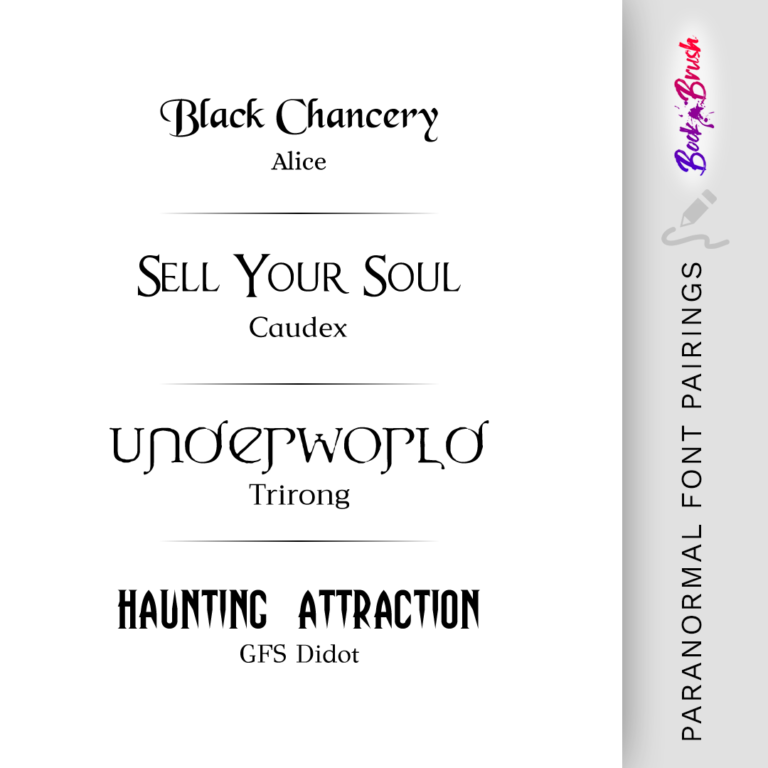
The Best Book Cover Fonts To Use For Your Paranormal Book
Your book cover is the face of your book, so it needs to properly convey the tone, message, and genre of your book. The cover of your book needs to flow well and jive together; this includes the image and the font. If your font doesn’t convey that this is a paranormal book, it can confuse the reader. Below, we discuss the best cover fonts to use for your paranormal book.
The Importance Of Book Cover Fonts
While the appearance of the font for your book cover is important, there’s more to it. When a reader grabs your book off the shelf or sees it online, your cover only has a few seconds to make a first impression. Readers often judge the genre of the book by the cover. Font choice is essential, as it can convey the tone and genre of your book. When you use a font that would suit a romance book for a paranormal book, it could confuse the reader. In the end, this could cause them to skip your book. Don’t let your font or the cover of your book be the reason why your audience isn’t interested in your book. Let us help you determine the right font to set your book apart from the rest and make a good first impression for your audience.
Gotham
Gotham is a relatively simple but effective font to use. It’s a sharp, strong, but modern font, which makes it a good choice for a paranormal book. This is typically a popular font for thrillers and paranormal book covers.
Sell Your Soul
The creepy name of this font speaks for itself. It’s a spooky font that’ll easily work for a paranormal cover. The tails on the ends of the letters give a nice edge to the font, giving it character.
Helvetica Neue
This is another simple font, but it works great for a more contemporary paranormal cover. It’s a powerful and bold option.
Didot
When it comes to your book cover, the font needs to be clear and readable. This is one option that you can trust your audience will easily be able to read. This font is clean and modern.
Black Chancery
If you want a font that has a more medieval feel to it, Black Chancery is the answer. It has a creepy vibe to it, which is perfect for a paranormal book cover. Even though it has more flair than most of the other fonts on this list, it’s still a powerful but legible option.
Lora
This font is more straightforward with a soft edge to it. It’s a clean font that can easily be used for thrillers, mysteries, and paranormal books.
Haunting Attraction
Haunting Attraction is bold, spooky, and unique. This font is bound to make a statement on your cover. The letters have a point at the end that brings an eerie feel to them. This will set your book apart from the others. It will be clear to your audience that this is a paranormal book.
Font Pairings
When designing your book cover, one thing you need to consider is font pairings. If you use a font for your title and a font for your name, it’s important that the font pairings jive well. If you use fonts that clash, it’ll throw off the flow of your cover and make it look chaotic. Below, we go over some of our favorite font pairings to use for your paranormal book cover. You can also check out these blogs: font pairings and typography tips for more information!
More font pairings:
– Haunting Attraction (Title) and Lora (Body)
– Sell Your Soul (Title) and Gotham (Body)
– Playfair Display (Title) and Lato (Body)
– Black Chancery (Title) and Crimson Text (Body)
– Trajan Pro (Title) and Gotham (Body)
– Cinzel Decorative (Title) and Roboto (Body)
– Spectral SC (Title) and Lora (Body)
In Conclusion